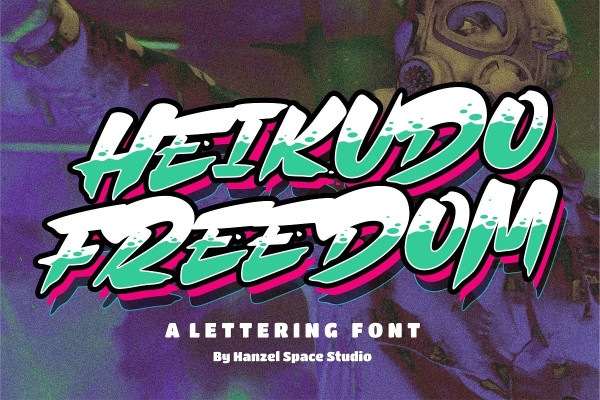
Heikudo Freedom Font
Heikudo Freedom Font a typeface that proves its usefulness over time. Letter strokes that produce unique characters on each glyph so that they display a natural impression. This font is very suitable for branding, film titles, book titles, quotes, product names and the business you want to create.